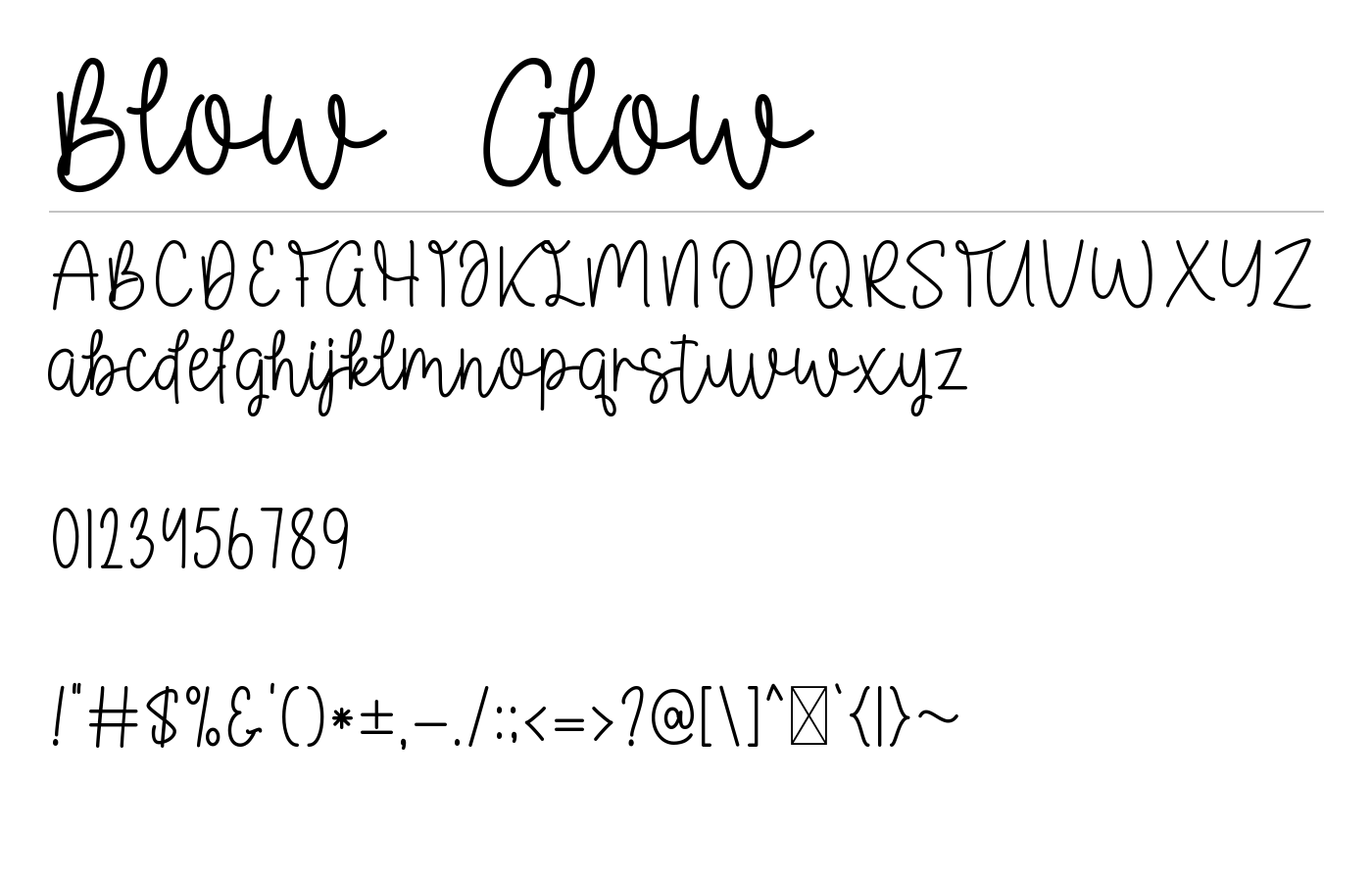
Blow Glow is a playful and casual handwritten sans serif font with a light weight and tall, narrow letterforms. Its thin, smooth strokes and whimsical loops give it a friendly and approachable feel, making it ideal for creative projects, invitations, or branding that seeks a personal touch. This font works well for headlines, logos, and packaging where a relaxed, informal style is desired.
Blow Glow Font
About Blow Glow Font
| Designer | Danar Nugroho |